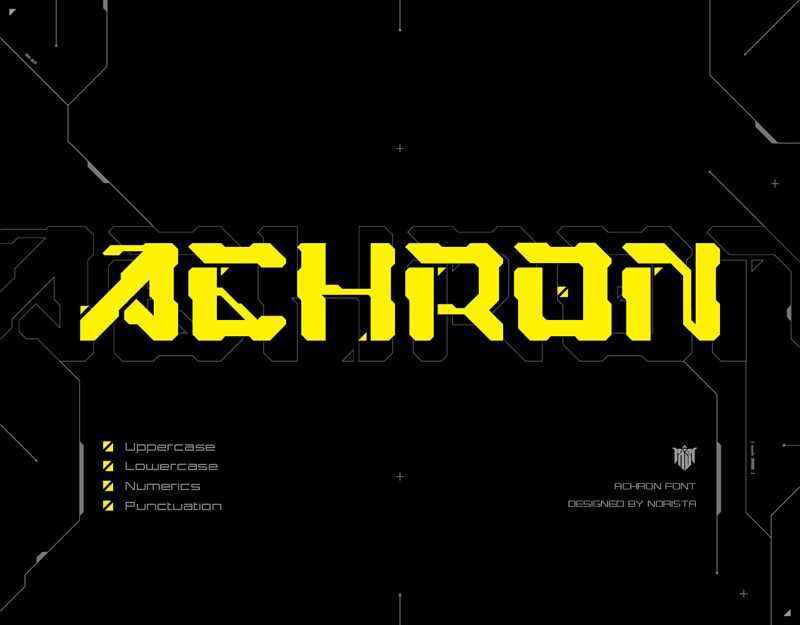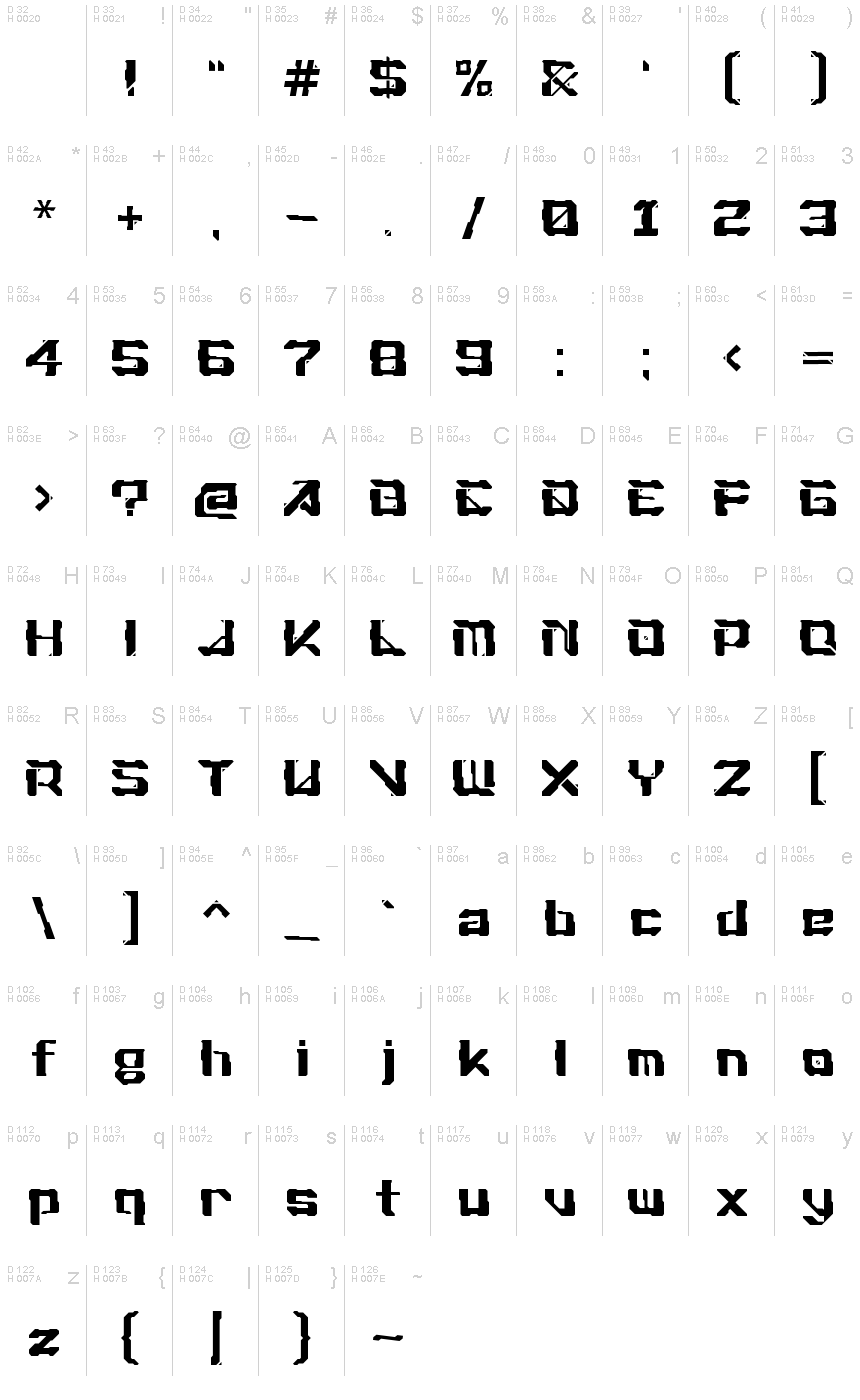
Achron
Achron, conceived by Gostaf Norista of Norista Design, stands as a striking display font perfect for modern and daring design projects. Its bold weight and expanded width create a commanding presence that ensures your message will not go unnoticed. The futuristic style of Achron is infused with an eroded texture, giving it a gritty, weathered look that adds depth and character.
Ideal for branding, posters, and headlines, Achron's unique aesthetic appeals to those seeking to project strength and innovation. Its combination of robustness and futuristic charm positions it as the go-to typeface for capturing attention in both digital and print media.